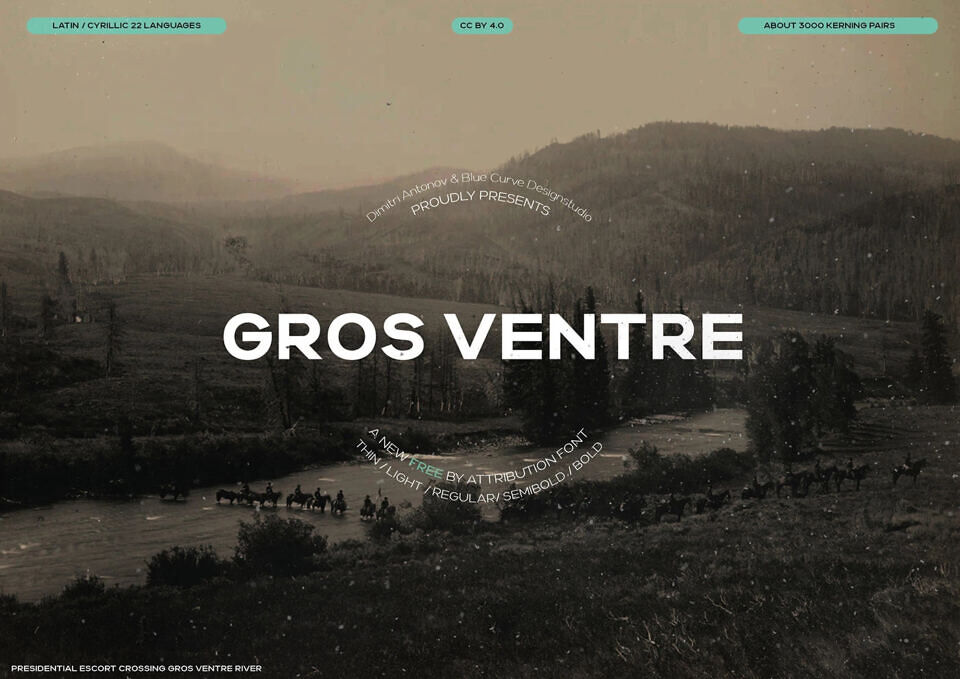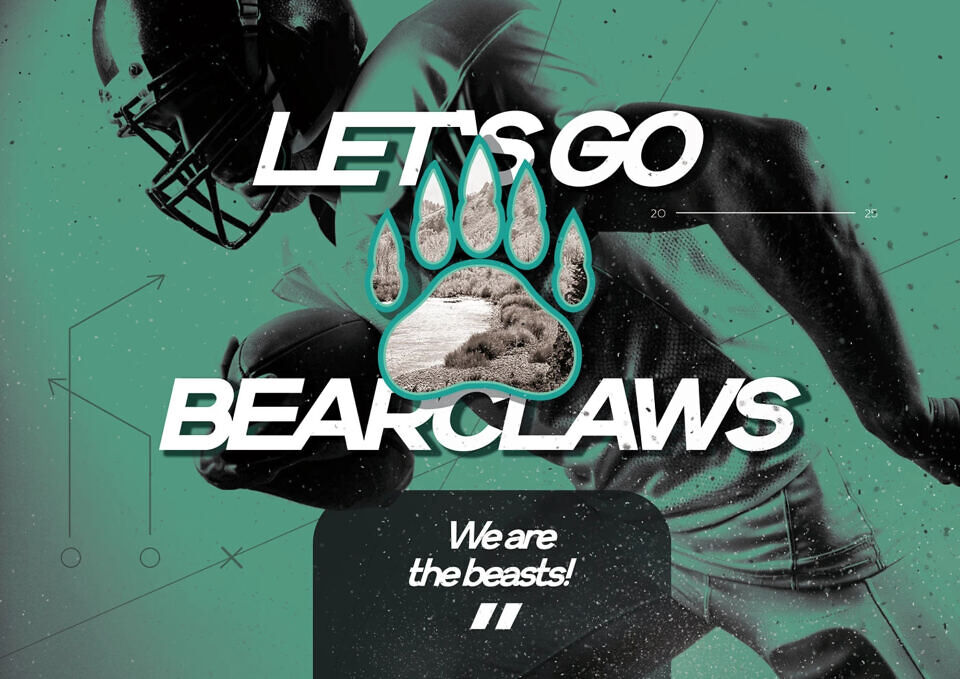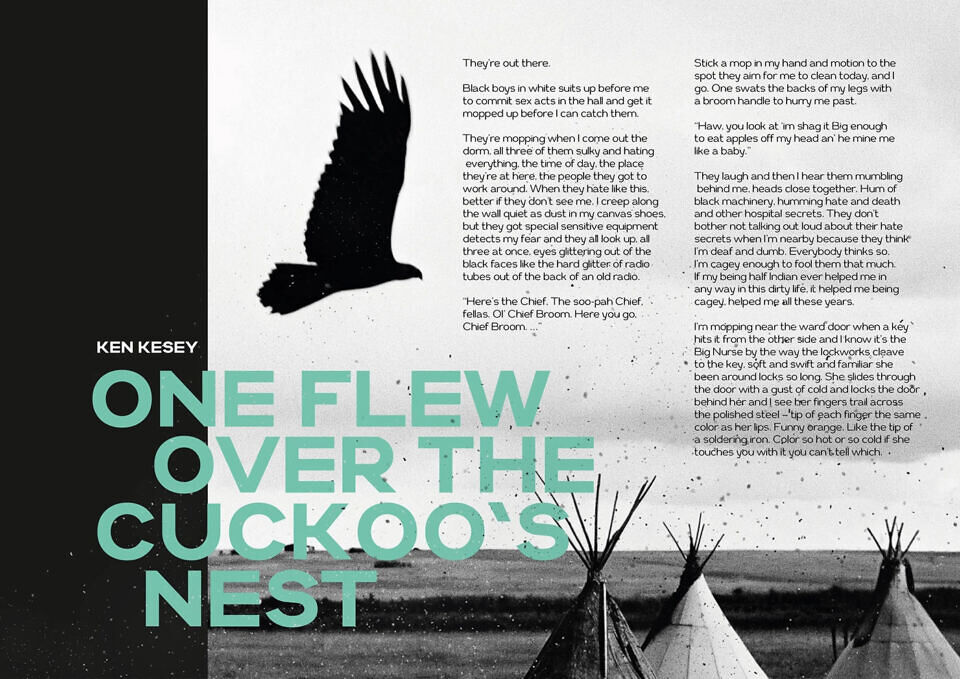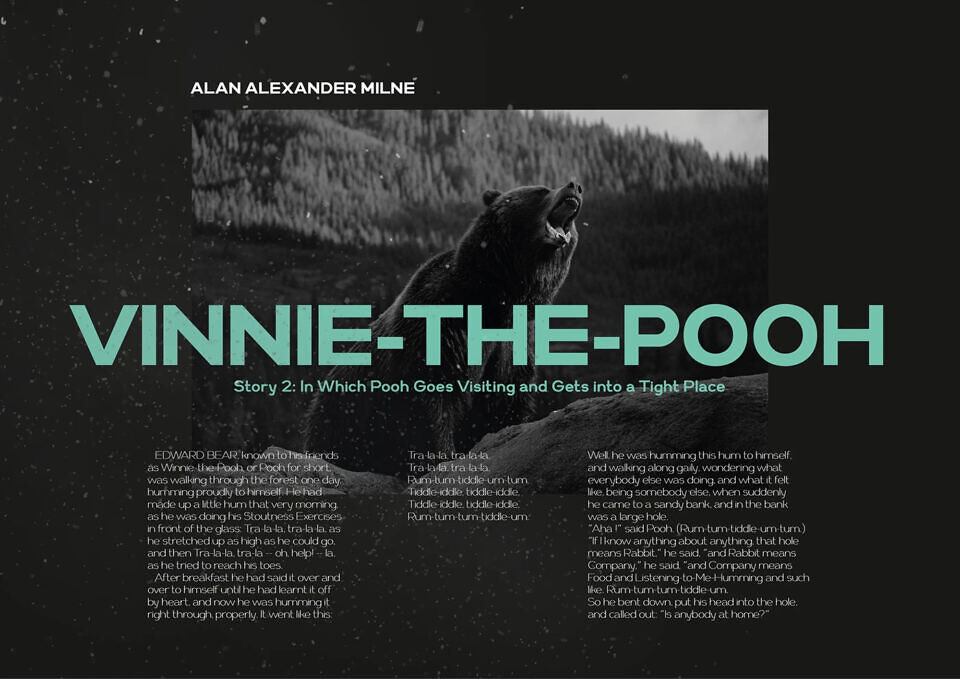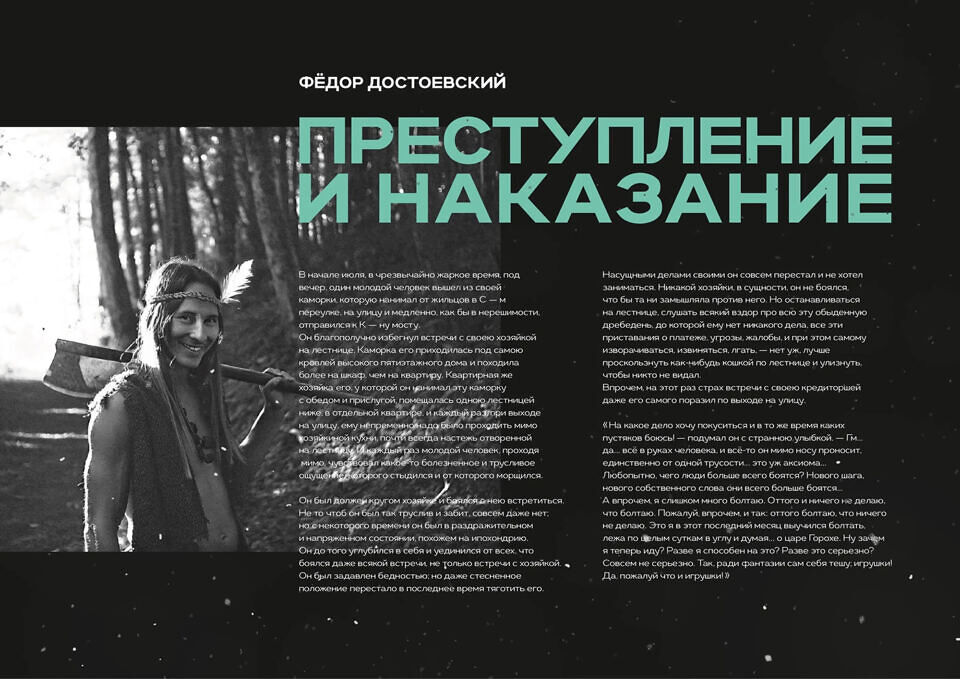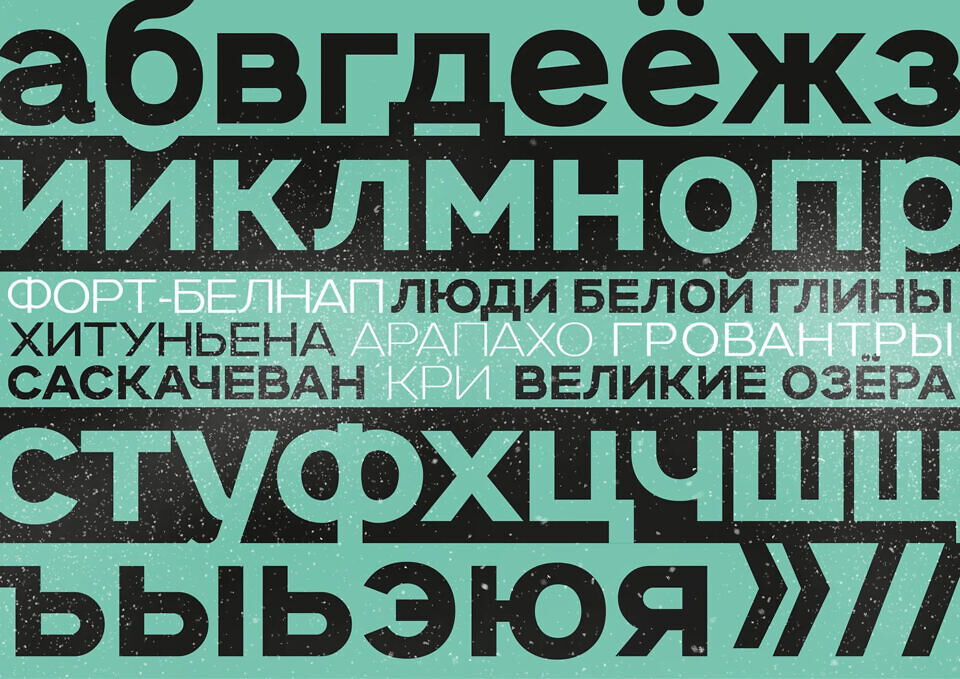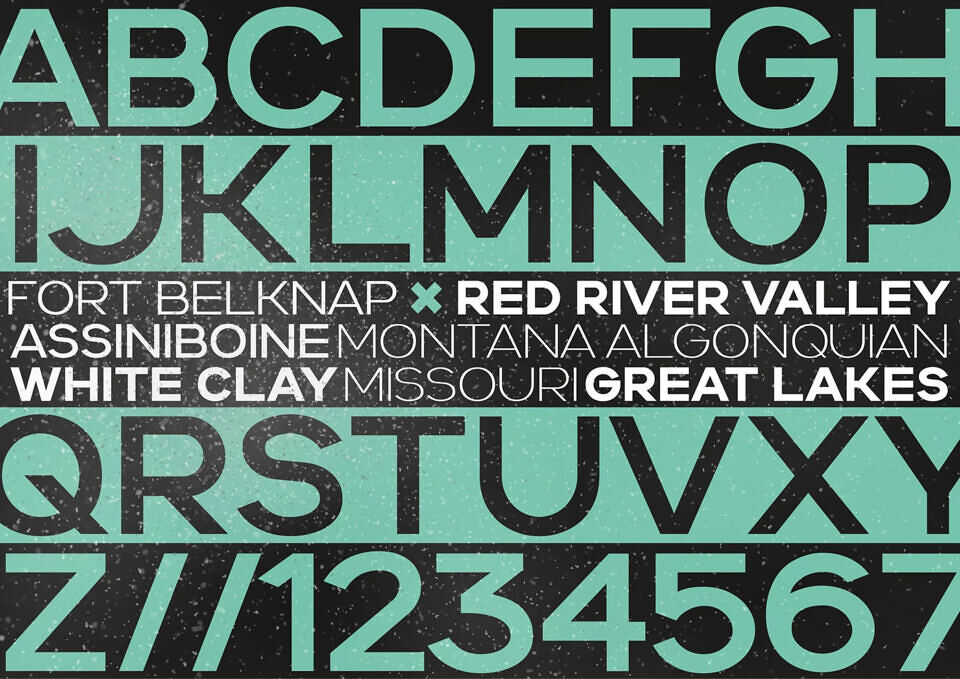
A new free font from Dmitry Antonov and the Blue Curve Design Studio. It seems ordinary, but it’s not. It’s suitable for both accented and body text. It’s a versatile soldier. With over 3,000 kerning pairs, it’s ready to use out of the box. It has 270 characters and extended Latin characters. Overall, it’s an excellent font.
Includes Bold, Semibold, Regular, Light, and Thin.